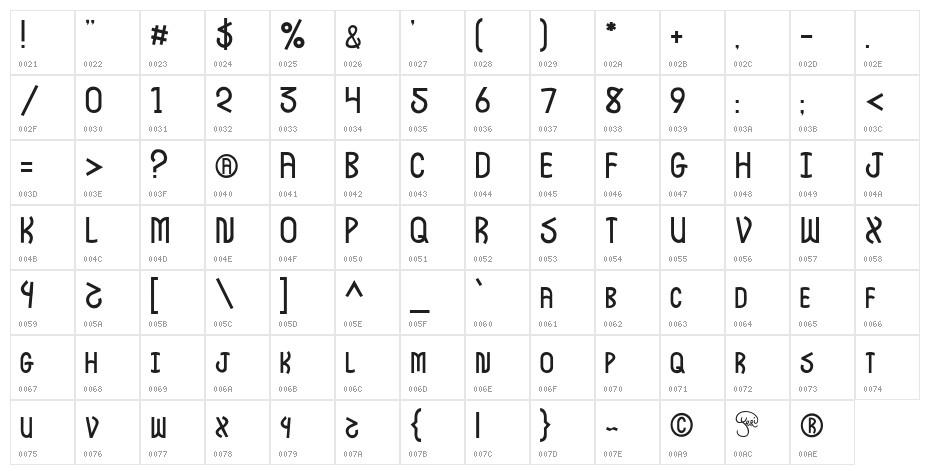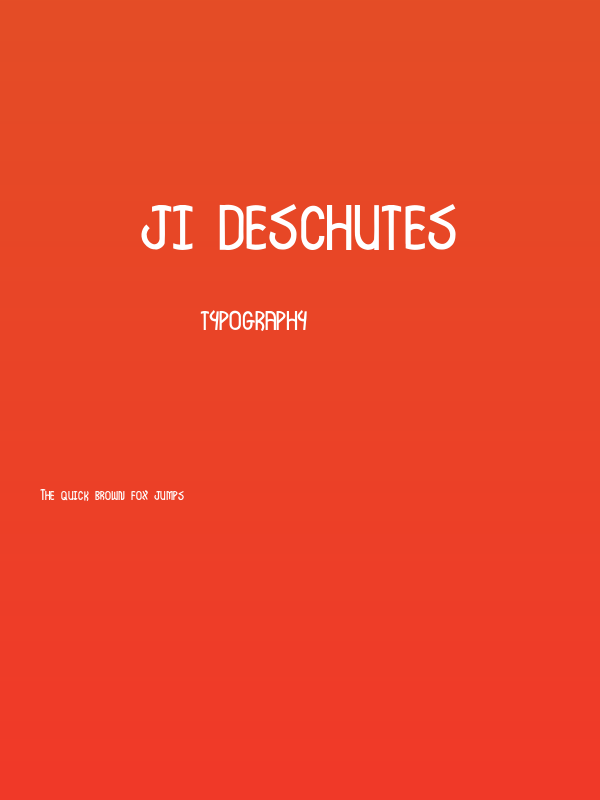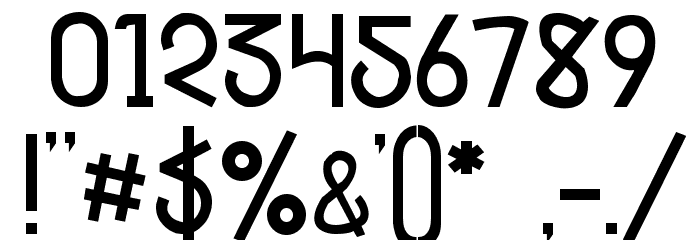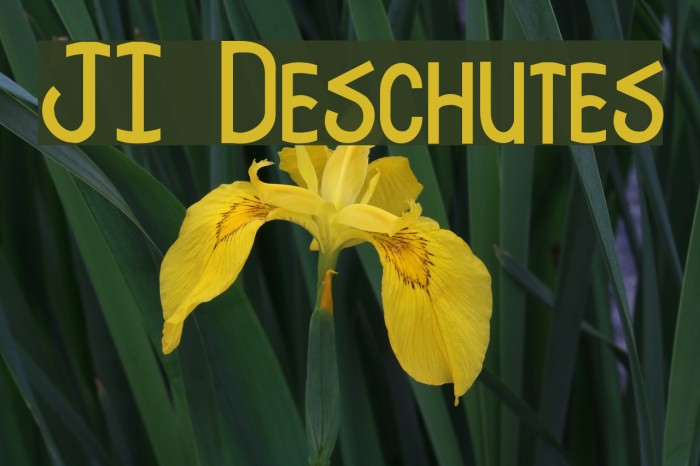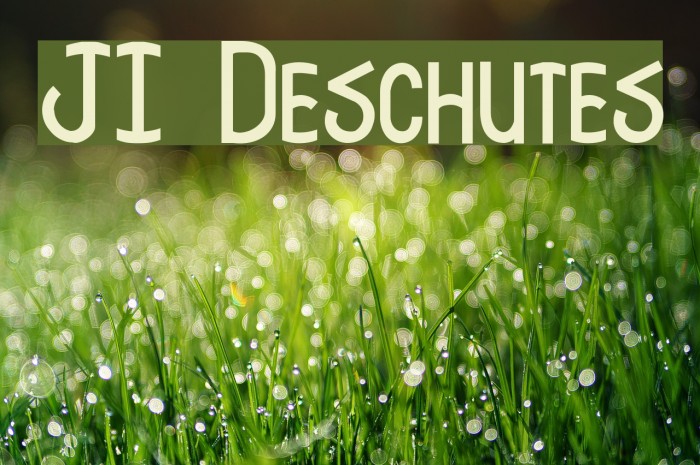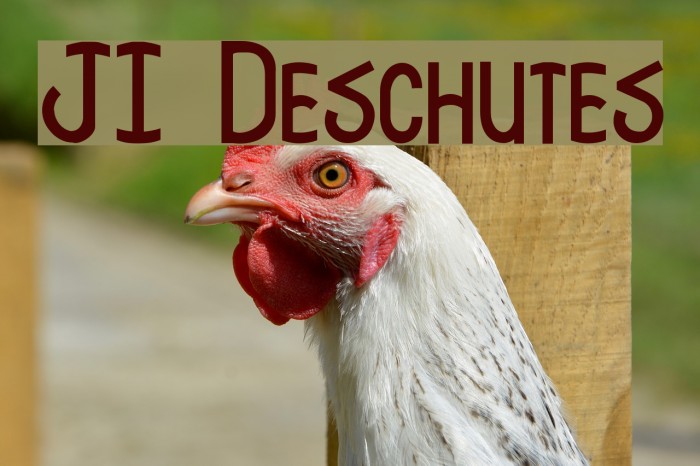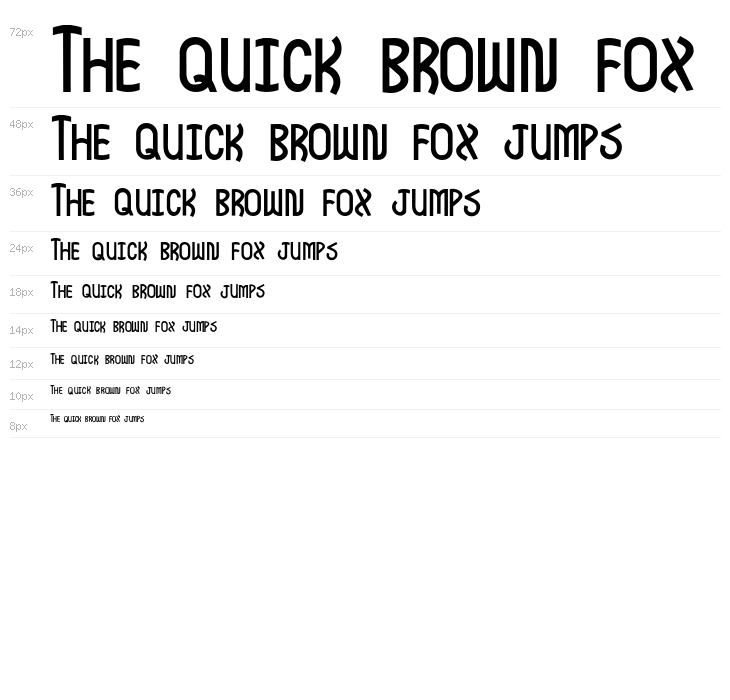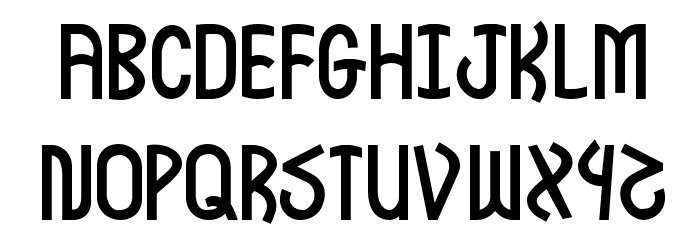
JI Deschutes Font
JI Deschutes Description
This font features a bold and distinctive style with a modern twist. The uppercase letters are characterized by their geometric shapes and consistent stroke width, giving them a strong and impactful appearance. The lowercase letters maintain the same boldness, with unique curves and angles that add a touch of creativity. The numerals are equally bold, with a uniform design that complements the overall aesthetic. Special characters are well-integrated, maintaining the font's cohesive look. This font is ideal for projects that require a strong visual presence and a modern, edgy feel.